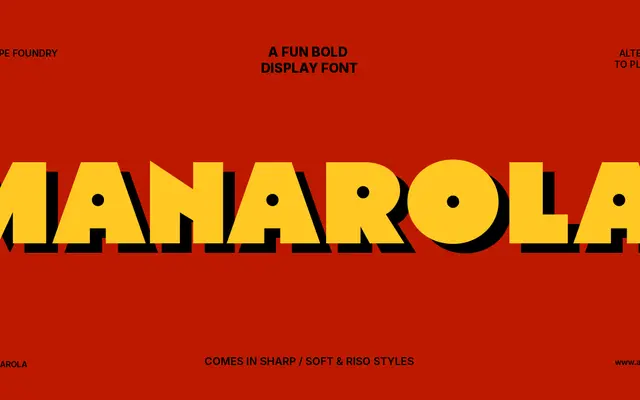
ATF Manarola
A bold display family drawn from Italian Riviera hand-painted signage, offered in three stylistic cuts including a Risograph-textured variant.
Three subfamilies cover distinct moods: Regular gives clean, high-contrast letterforms; Soft rounds the terminals for a warmer feel; Soft Riso introduces a grainy ink-bleed texture that mimics Risograph printing. OpenType alternates and stylistic sets allow considerable glyph variation across all three cuts. Best suited to packaging, poster work and brand identities where a retro Mediterranean flavour is the brief.
A bold, all-caps-leaning display family drawn from Mediterranean hand-painted signage traditions; the textured Soft Riso variant and rounded cuts push it firmly into display rather than text use.